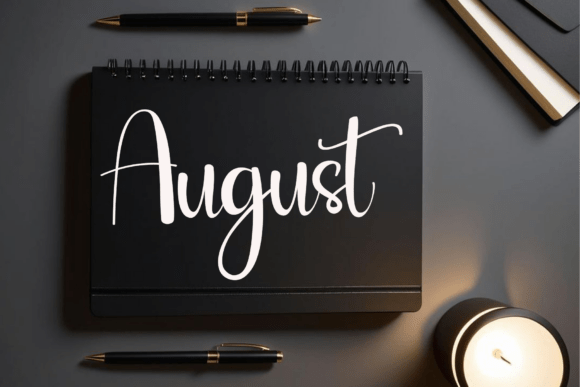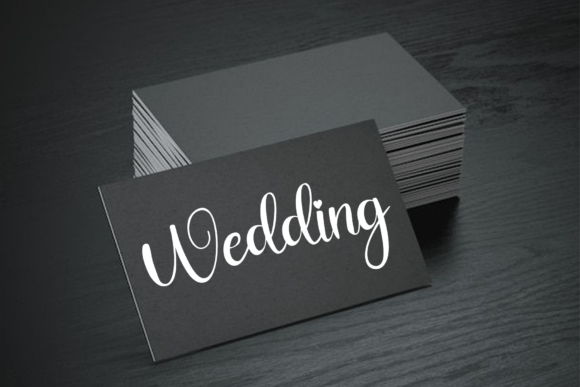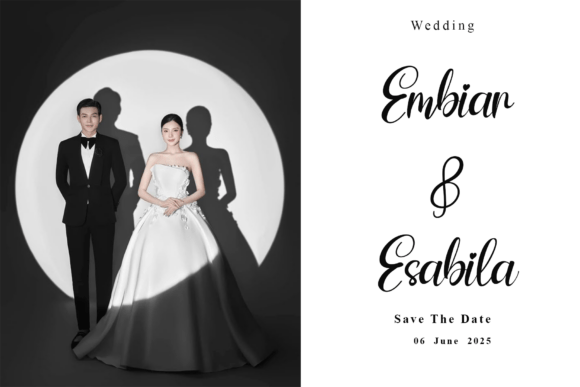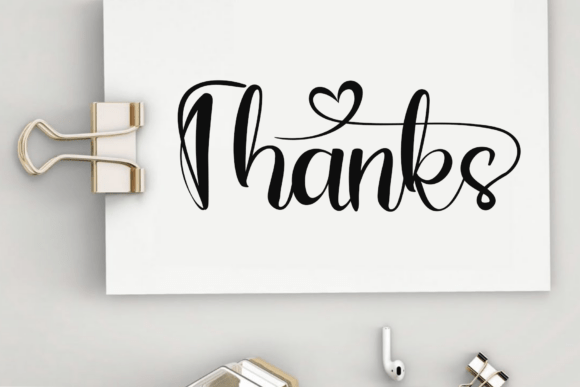
Introducing Friends Font: The Perfect Handwritten Font for Unique Designs
Are you a designer or crafter looking for a font that can add a touch of personality to your work? Look no further than Friends Font, a delicate handwritten font carefully crafted for a cool and unique design. This versatile font is perfect for a wide range of projects, from writing letters and invitations to labeling food products and creating eye-catching titles.
What is Friends Font?
Friends Font is a beautiful, hand-crafted font that is designed to bring a touch of elegance and whimsy to your designs. With its delicate lines and unique character, this font is sure to stand out from the crowd. Whether you’re creating a romantic letter, a fun invitation, or a catchy title, Friends Font is the perfect choice.
Features of Friends Font
So, what makes Friends Font so special? Here are just a few of its key features:
- Delicate Handwritten Style: Friends Font has a beautiful, handwritten style that is perfect for creating unique and eye-catching designs.
- Versatile: This font can be used for a wide range of projects, from letters and invitations to food products and titles.
- Easy to Read: Despite its delicate style, Friends Font is easy to read, making it perfect for both digital and print designs.
- Unique Character: Friends Font has a unique character that is sure to make your designs stand out from the crowd.
Uses for Friends Font
So, what can you use Friends Font for? The possibilities are endless! Here are a few ideas to get you started:
- Invitations: Use Friends Font to create beautiful, one-of-a-kind invitations for weddings, birthday parties, and other special occasions.
- Letter Writing: Add a touch of elegance to your letters with Friends Font, perfect for writing to loved ones or penning a business letter.
- Food Products: Use Friends Font to label your homemade food products, such as jams, honey, and baked goods.
- Titles and Headings: Add a touch of personality to your titles and headings with Friends Font, perfect for blog posts, articles, and more.
- DIY Projects: Use Friends Font to add a personal touch to your DIY projects, such as crafts, scrapbooking, and more.
Why Choose Friends Font?
So, why should you choose Friends Font for your next project? Here are just a few reasons:
- Unique and Eye-Catching: Friends Font is a unique and eye-catching font that is sure to make your designs stand out.
- High-Quality: Friends Font is a high-quality font that is designed to look great on both digital and print designs.